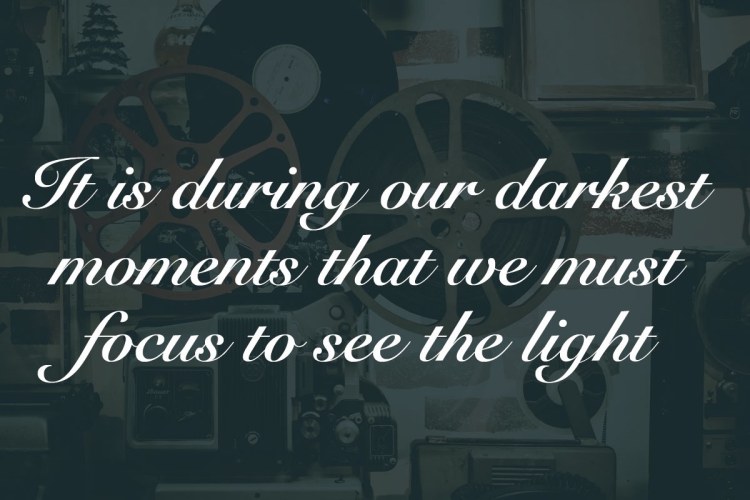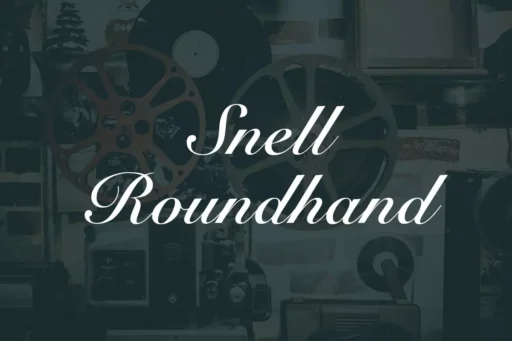
Snell Roundhand Font
Snell Roundhand is a script font by Matthew Carter in 1966 and is available through Linotype. Carter, a British designer at a high professional level, wanted to design a typeface that would reflect the fluidity of handwriting. He got the idea from Charles Snell, a writer who had written a writing manual titled “The Pen-man’s Treasury Open’d” published in 1694 which used roundhand script, a style of writing that was in vogue in England in the last quarter of the 17th and the first quarter of the 18th century.
Roundhand or English round hand was a rather elegant and beautiful form of writing that focused on the regularity and legibility of the letters. It was used in official documents and letters; it was praised for its clear and nice-looking text. Carter’s work of digitizing this beautiful script from Snell made it possible to use it in today’s world of printing and design.
The history of Snell Roundhand began in the 17th century when an English writing master by the name Charles Snell came up with a elegant script that formed the basis of this font. This stylistic feature of Snell’s script written in flowing lines and round shapes passed to his students and influenced the handwriting for many years.
However, it was in the middle of the twentieth century when Matthew Carter, a famous type designer, developed Snell’s script as a digital font. As an employee of Mergenthaler Linotype, Carter carefully refined Snell’s handwriting to fit into the existing system of the printing process. Thus, the Snell Roundhand font was introduced in 1966 and quickly became popular due to its ability to convey the idea of sophistication and sophistication.
Snell Roundhand is famous for the characteristics that differentiate it from other typefaces. The font has one major feature, which is the linearity of its form and the simulation of handwritten letters. The letterforms are fairly curves, which gives it a more friendly and approachable vibe. Another unique aspect is the slight variation between the heavy and the light strokes, which brings an element of movement to the otherwise elegant font.
The font family consists of three weights: These are the styles; Regular, Bold, and Black. All the weights have a different taste to it and this gives the designers the freedom to select the right weight for their project. Also, Snell Roundhand has several swash characters and ligatures that give the font a more calligraphic touch and give the designer some options for creativity.
Snell Roundhand is very flexible and that is why it is best to use in many different areas. It is mostly applicable in official documents like wedding invitations, certificates, and other premium brand documents and products. It gives the impression of a formal and traditional look and feel in these contexts.
However, Snell Roundhand is also very suitable for various modern design projects. It is especially popular in logos, magazine headings, and advertising because it conveys a feeling of retro or vintage look. As a result, we can consider this font a powerful means of grabbing the attention of the target audience and touching their emotions, which is always important for designers who work on creating effective visuals.
Even though Snell Roundhand is quite distinct, there are other similar fonts that you can use as a substitution. Some notable examples include:
Shelley Script: A more informal and fun font that is also more rounded than Snell Roundhand.
Palace Script: A bolder and more decorative style of font that is thought to be more elegant, sophisticated and maybe even regal.
Brush Script: A slightly more decorative and more swash type of font that resembles brush stroke writing.